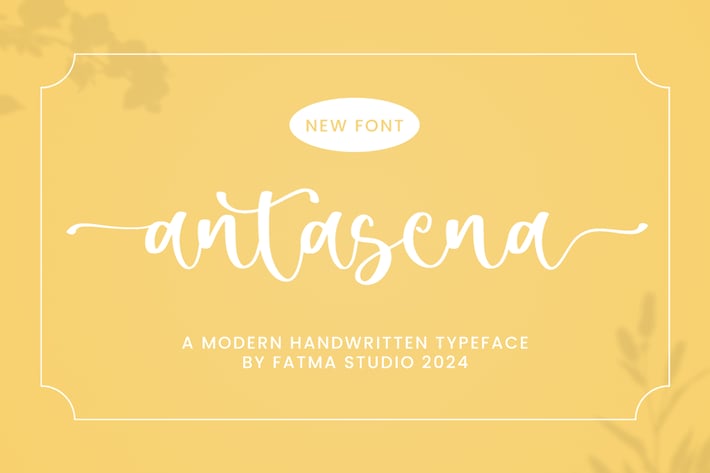
Antasena - A Lovely Script Font
Antasena is an incredibly beautiful script font. It has a classy, elegant and modern look that can be used for logos, branding, invitations, stationery, wedding designs, social media posts, and much more!
Ligatures, Swash, Alternates